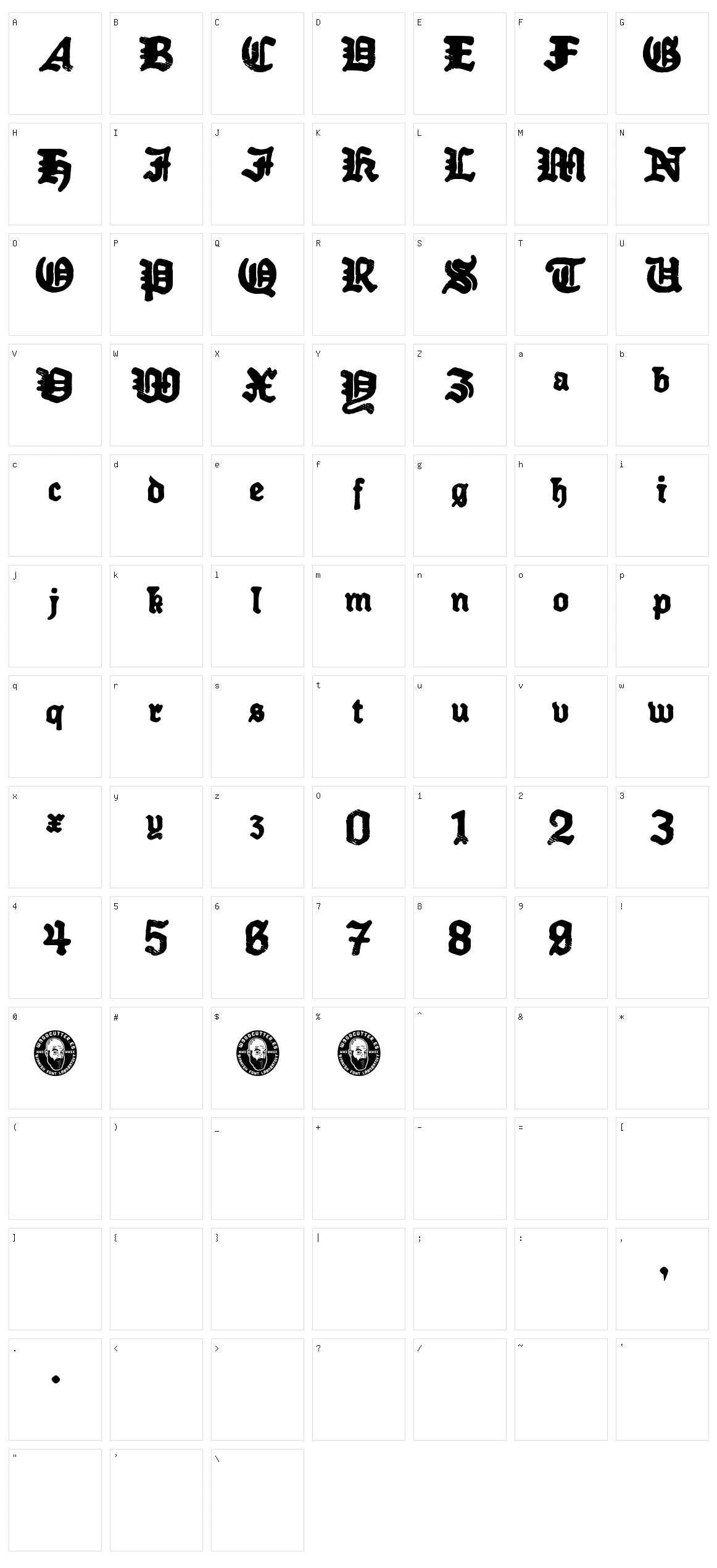
The free font Older Dictator is carefully designed by Woodcutter, showcasing a thoughtful balance of creativity and usability and belongs to the Gothic font family. When you download the ZIP file, it contains only 104.8 KB of font files, making it lightweight and quick to download. Please review the license details below to understand permitted usage and distribution rights. If license information is not available, we recommend using this font for personal projects only or contacting the author directly for commercial usage permissions.